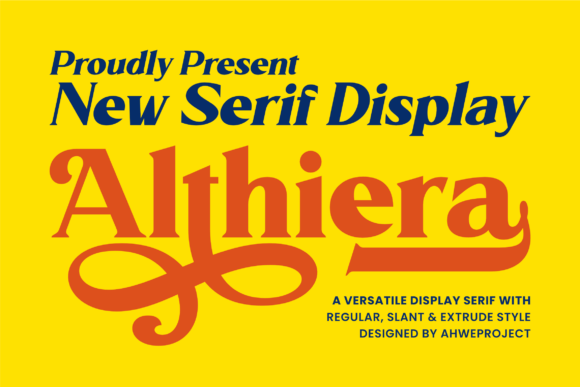
Unlocking the Power of Althiera Font: A Designer’s Dream Come True
I’ll never forget the design project that led me to discover Althiera Font. I was working on a branding campaign for a luxury fashion brand, and I needed a font that would make a statement. After hours of scouring through font libraries and trying out different combinations, I stumbled upon Althiera. Its bold, serif strokes and elegant curves instantly caught my attention, and I knew I had found the perfect fit. In this article, I’ll share my experience with Althiera, its features, and how to make the most of this stunning font.
A Comprehensive Review of Althiera Font
What I Love About Althiera ✨
- Strong, bold strokes that command attention ✅
- Elegant curves that add a touch of sophistication 🌟
- Multiple variations, including Regular, Slant, and Extrude, offering flexibility and creativity 🌈
- Clean lines and distinctive style that make it perfect for headlines, branding projects, logos, and editorial designs 📚
- Some users may find the font too bold for certain design projects ⚠️
- Limited use of OpenType features, which may restrict advanced typographic control 📊
The Story Behind Althiera Font
Althiera Font was designed with the intention of creating a bold, yet elegant serif font that would make a statement. Inspired by classic typography and modern design trends, Althiera’s creator aimed to craft a font that would be versatile and highly customizable. The result is a font that exudes confidence and sophistication, perfect for designers looking to elevate their projects.
Q: What is Althiera Font best suited for?
A: Althiera Font is ideal for headlines, branding projects, logos, and editorial designs where a bold, yet elegant serif font is needed.
Q: Is Althiera Font easy to read?
A: Althiera Font is designed to be highly legible, even at smaller font sizes. However, its bold strokes may make it more suitable for display purposes rather than body text.